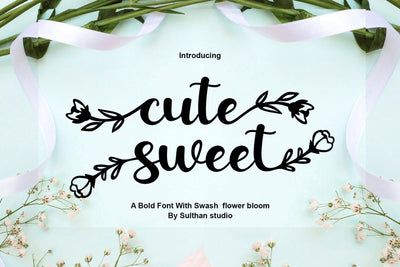
cute sweet
This sweet and cute font is perfect for any crafts. It's really fun when you need a cute and unique touch..
complete font with uppercase, lowercase, punctuation numbers, and also language support.